The Fearless (Taylor’s Version) album cover features an elegant and modern font that perfectly aligns with Taylor Swift’s reimagined classic.
Designed using Carla Sans by Creative Corner Studio, this typeface offers a minimalist yet impactful design that beautifully complements the album’s bold statement. With its clean lines and sleek aesthetics, Carla Sans captures the essence of both nostalgia and modernity.
Fearless (Taylor’s Version) Font Details
| Font Name | Carla Sans |
| Designer | Creative Corner Studio |
| Style | Minimalist Sans-Serif |
| Usage | Album Title & Tracklist |
The Fearless Font stands out due to its simple and effective approach. It was chosen specifically to complement the bold statement of the re-recorded album, reflecting Taylor Swift’s evolution as an artist. The font’s clean, sans-serif design is ideal for pop music, offering clarity and readability while maintaining an air of sophistication.
Carla Sans Font Family
The Carla Sans family offers several weights, making it a versatile choice for various design needs:
- Carla Sans Regular
- Carla Sans Bold
- Carla Sans Light
- Carla Sans ExtraLight
Fonts Used In Taylor Swift’s Other Albums
Taylor Swift is known for her carefully chosen font styles across her albums. For example, Reputation uses fonts like Engravers Old English and Satisfaction, which give the album cover a bold, intense vibe. Meanwhile, the Midnights album cover uses a more streamlined approach with fonts such as Neue Haas Grotesk and Mina Medium, providing a clean, modern look that contrasts well with Carla Sans used for Fearless (Taylor’s Version).
Similar Fonts To Carla Sans
If you’re looking for fonts that are visually similar to Carla Sans, here are a few options to consider:
- Neue Haas Grotesk
- Helvetica Neue
- Bebas Neue
- Avenir
- Futura
Where To Use The Fearless Font
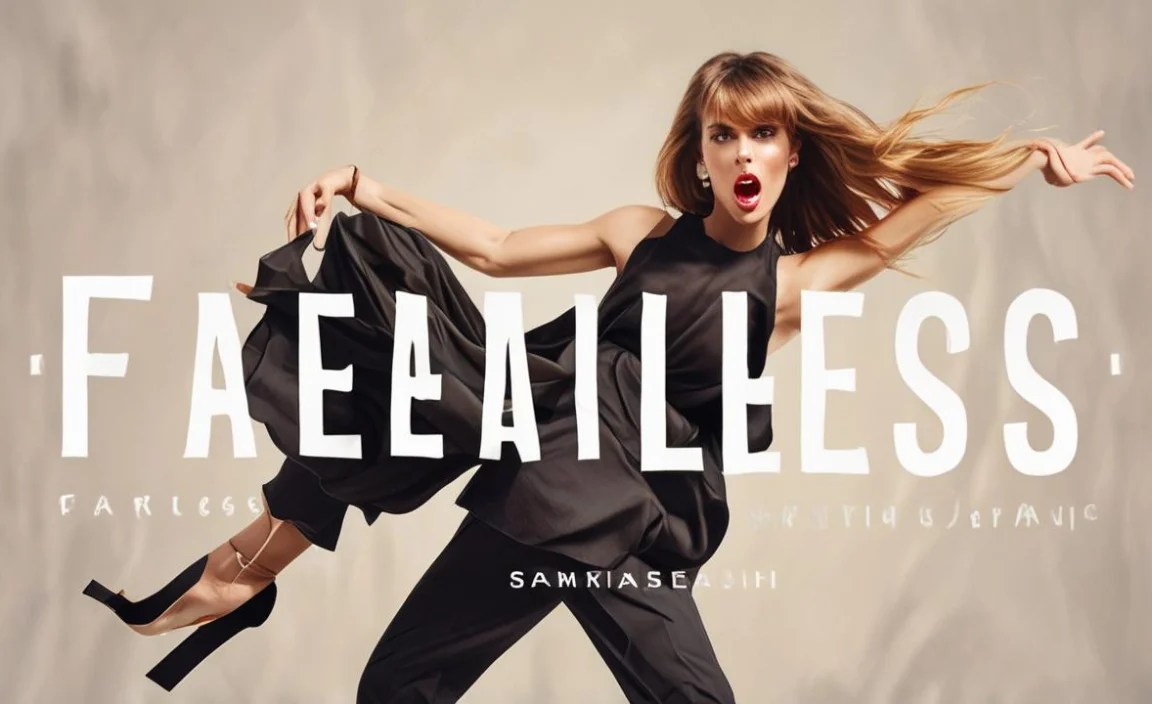
Carla Sans is a versatile font, perfect for a wide variety of uses beyond album covers. It’s ideal for creating cool graphics for song titles, promotional materials, and digital content. Whether you’re a graphic designer working on music-related projects or just a fan creating Taylor Swift-inspired designs, Carla Sans helps add a professional, minimalist touch to your work.
Carla Sans is a sleek, modern font that brings elegance and minimalism to any design, just like it does on the Fearless (Taylor’s Version) album cover. Its clean lines and versatile weights make it a great choice for a wide variety of design projects, from album artwork to web design.
The font’s compatibility with other modern sans-serifs like Bebas Neue and Neue Haas Grotesk gives you flexibility when pairing it with other typography elements. Whether you’re a graphic designer, a music fan, or just someone interested in typography, Carla Sans is a font that can elevate your work with its sophisticated, timeless appeal.
1.What Font Is Used On The Fearless (Taylor’s Version) Album Cover?
The font used is Carla Sans by Creative Corner Studio.
3.What Other Fonts Are Used In Taylor Swift’s Albums?
Taylor’s albums use a variety of fonts, including Engravers Old English, Satisfaction, and Neue Haas Grotesk.
4.Is Carla Sans Suitable For Pop Music Album Covers?
Yes, Carla Sans is perfect for creating modern, minimalist designs for pop music albums.